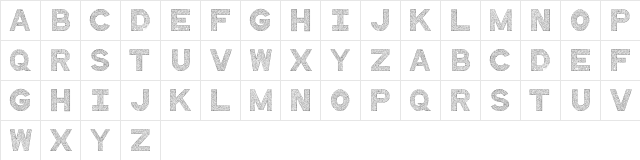
QuiltedStippled Regular
| Designer | Character, based on embroidery patterns by DesignsInStitches |
Design Context for QuiltedStippled Typeface
QuiltedStippled is a composed and adaptable typeface that performs quietly and consistently across a wide range of design contexts.